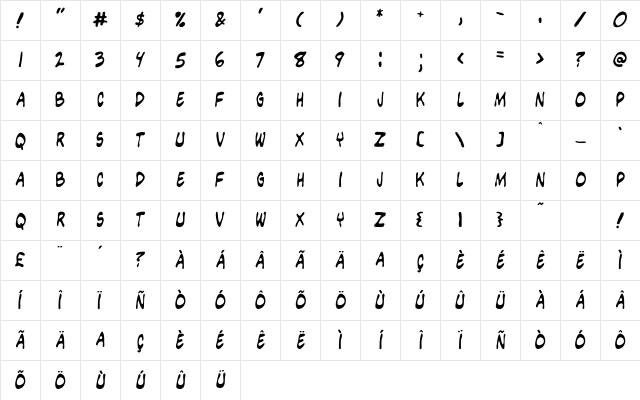
Grimmy Medium
Design Context for Grimmy
Grimmy is a composed and adaptable typeface that performs quietly and consistently across a wide range of design contexts.